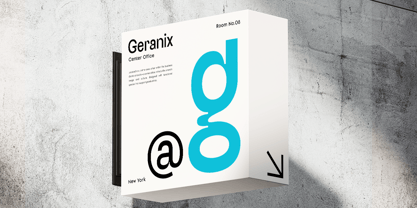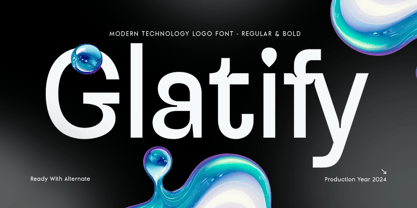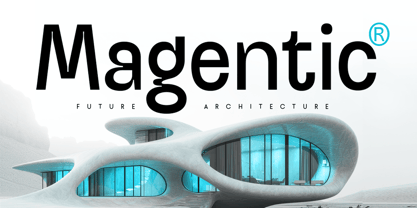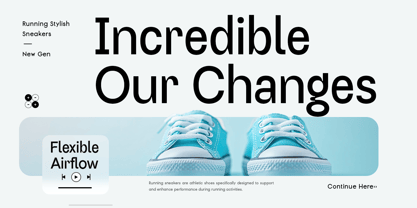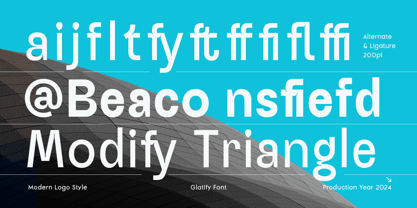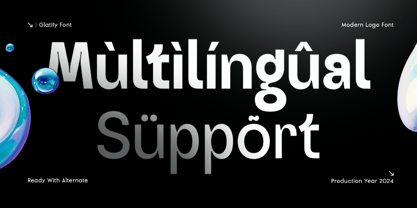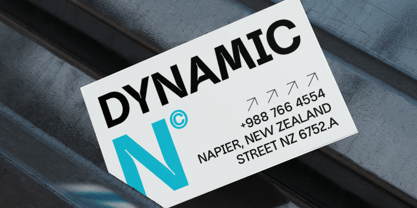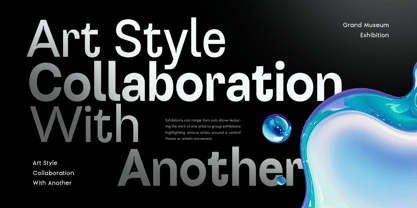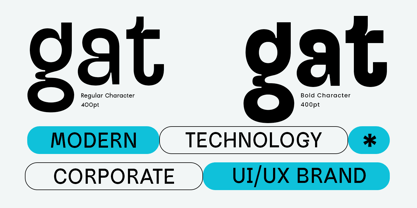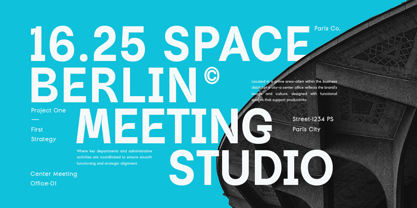
Glatify - Modern Technology Font
GLATIFY is a modern technology font designed for a futuristic and sleek aesthetic. Its sharp, geometric forms make it ideal for tech branding, digital interfaces, startups, and innovative design projects.
Whether you’re creating high-tech logos, UI/UX designs, or futuristic posters, GLATIFY offers clarity, precision, and a contemporary edge that elevates any project. Its versatile design ensures readability while maintaining a bold, professional appearance across digital and print mediums.
GLATIFY – Modern Technology Font Features
Sharp and futuristic character set for tech projects
Clean geometric design ideal for modern branding
Includes uppercase, lowercase, numerals, and punctuation
Versatile for both digital and print applications
Multilingual support for
Afrikaans, Albanian, Asu, Basque, Bemba, Bena, Breton, Chiga, Cornish, Dutch, English, Estonian, Filipino, Finnish, Friulian, Galician, German, Gusii, Indonesian, Irish, Italian, Kabuverdianu, Kalenjin, Kinyarwanda, Luo, Luxembourgish, Luyia, Machame, Makhuwa-Meetto, Makonde, Malagasy, Manx, Morisyen, North Ndebele, Nyankole, Oromo, Portuguese, Quechua, Romansh, Rombo, Rundi, Rwa, Samburu, Sango, Sangu, Scottish Gaelic, Sena, Shambala, Shona, Soga, Somali, Spanish, Swahili, Swedish, Swiss, and more.